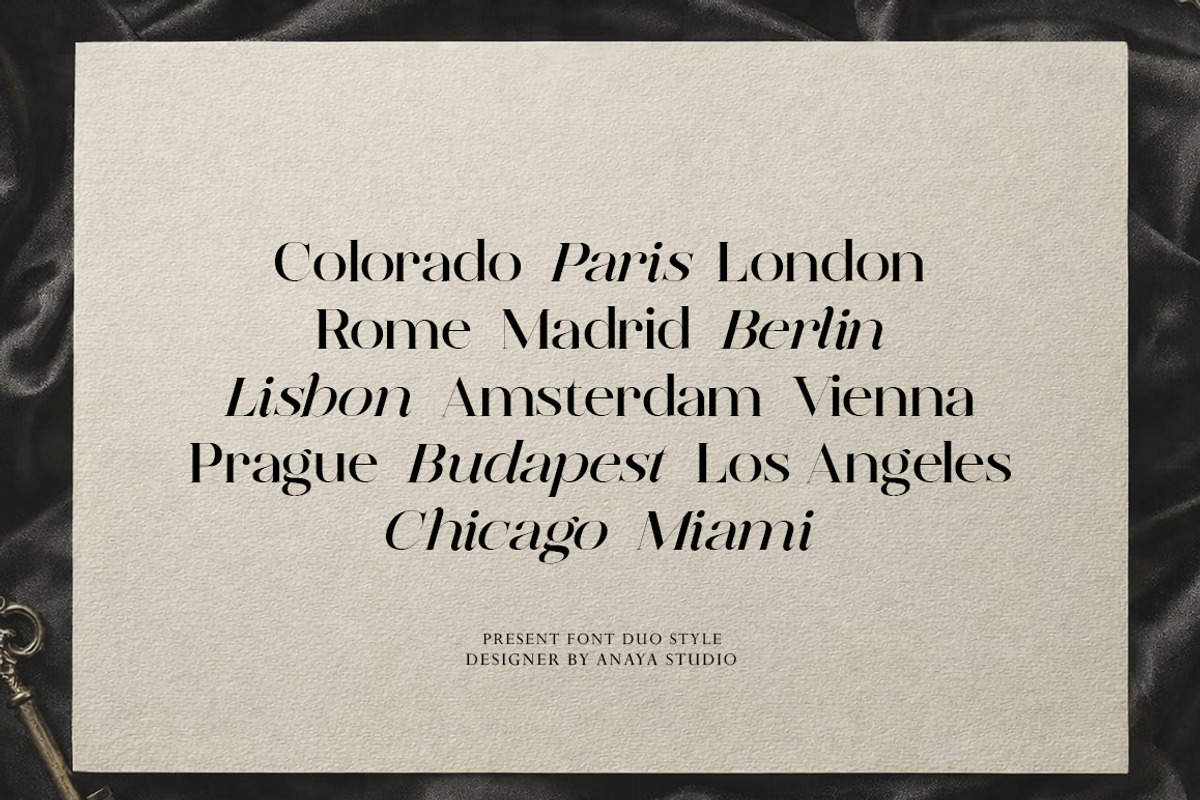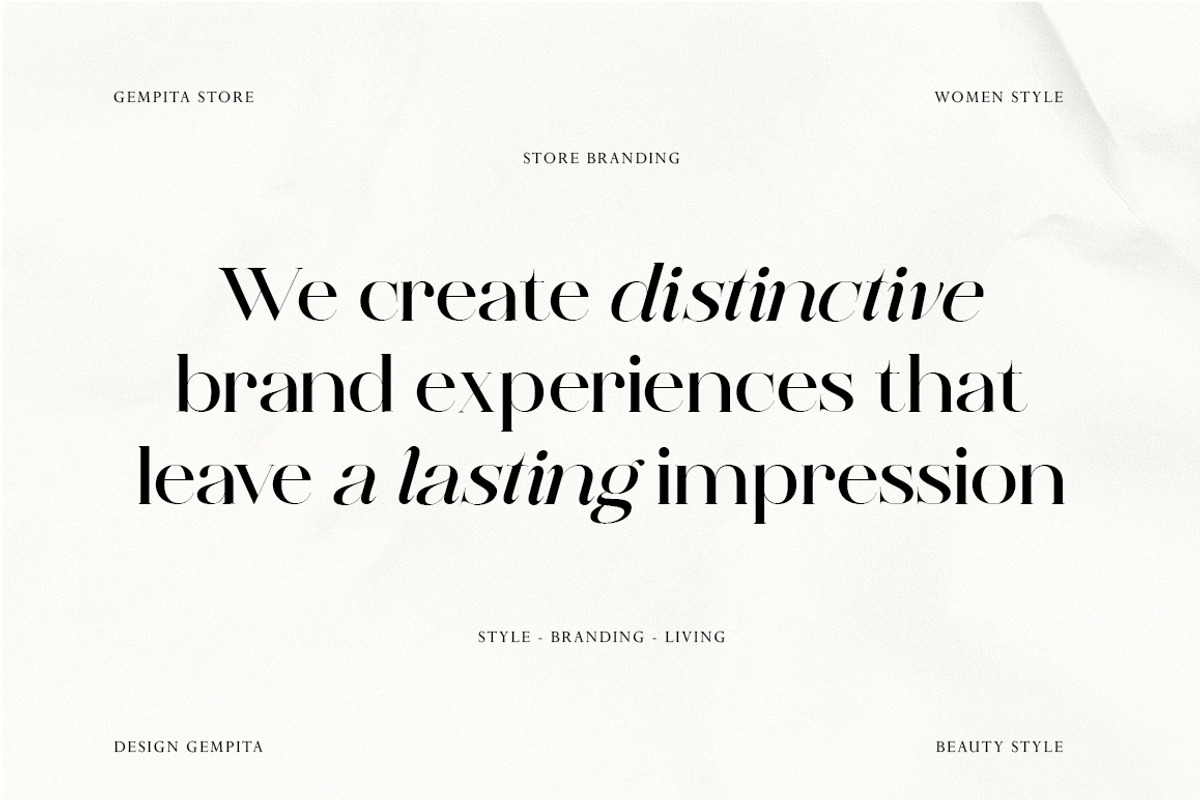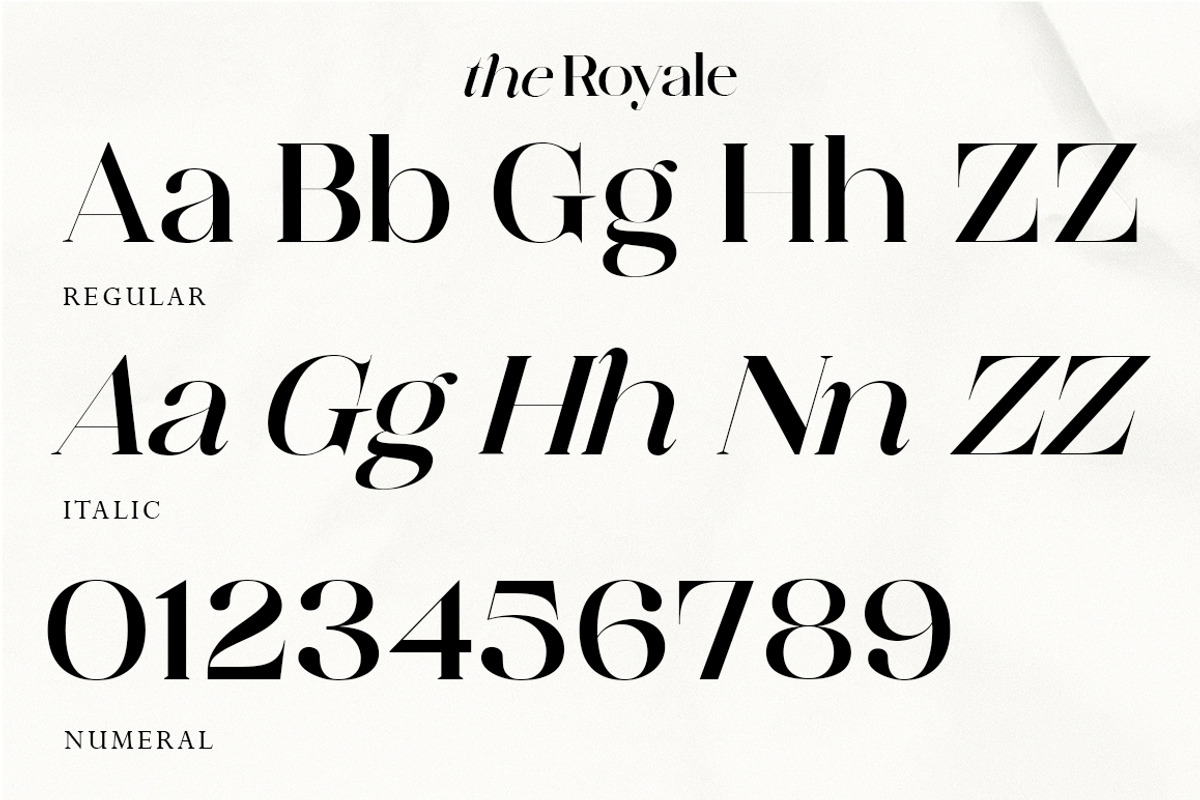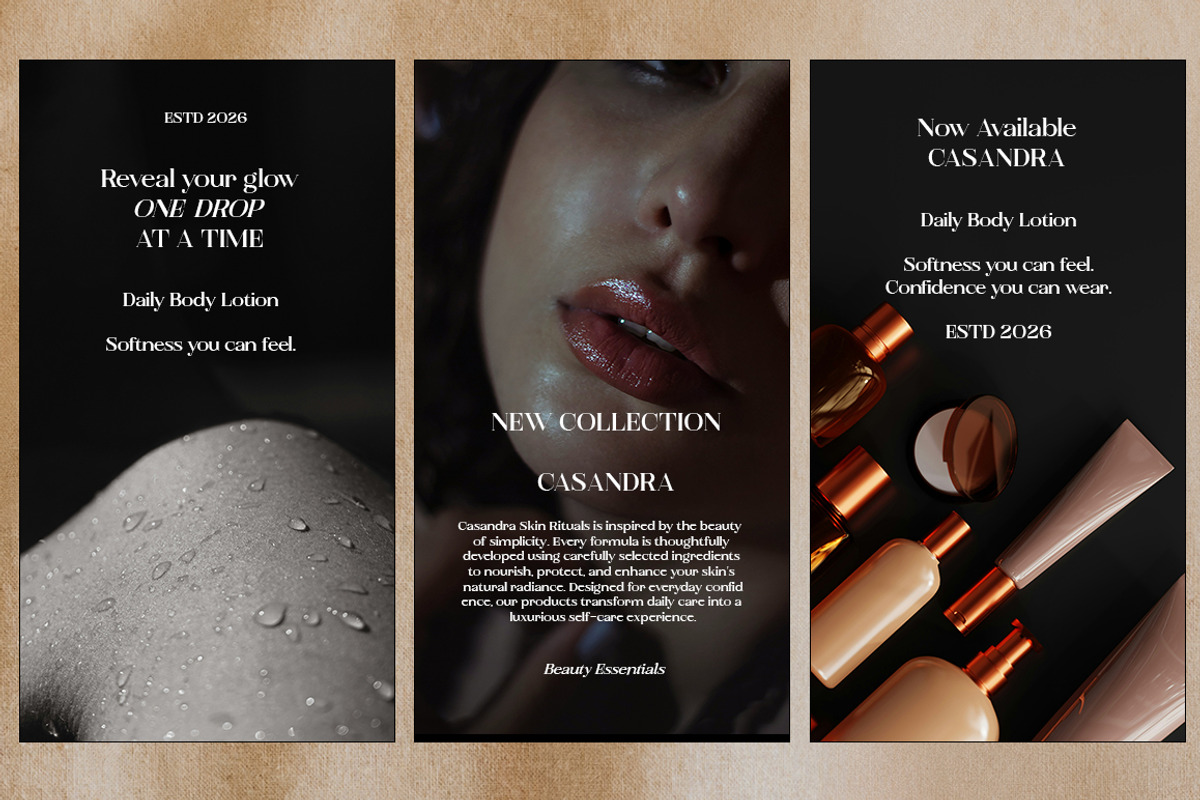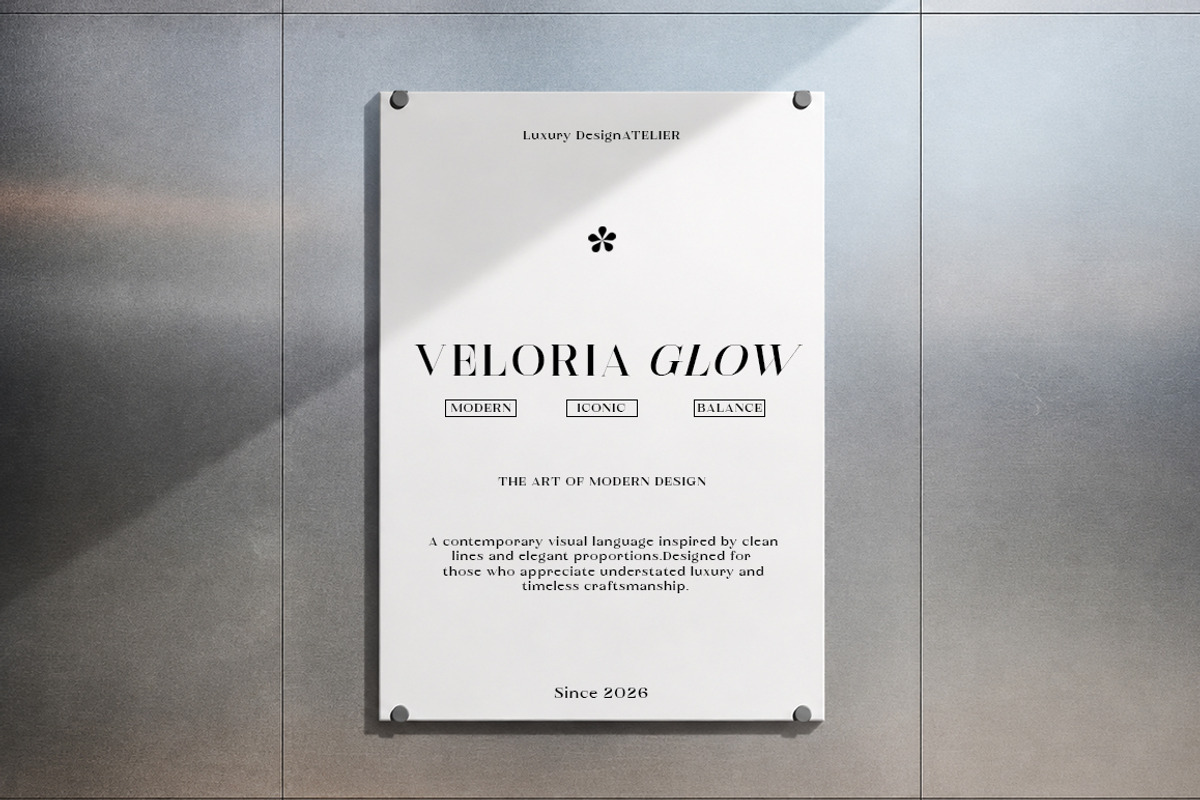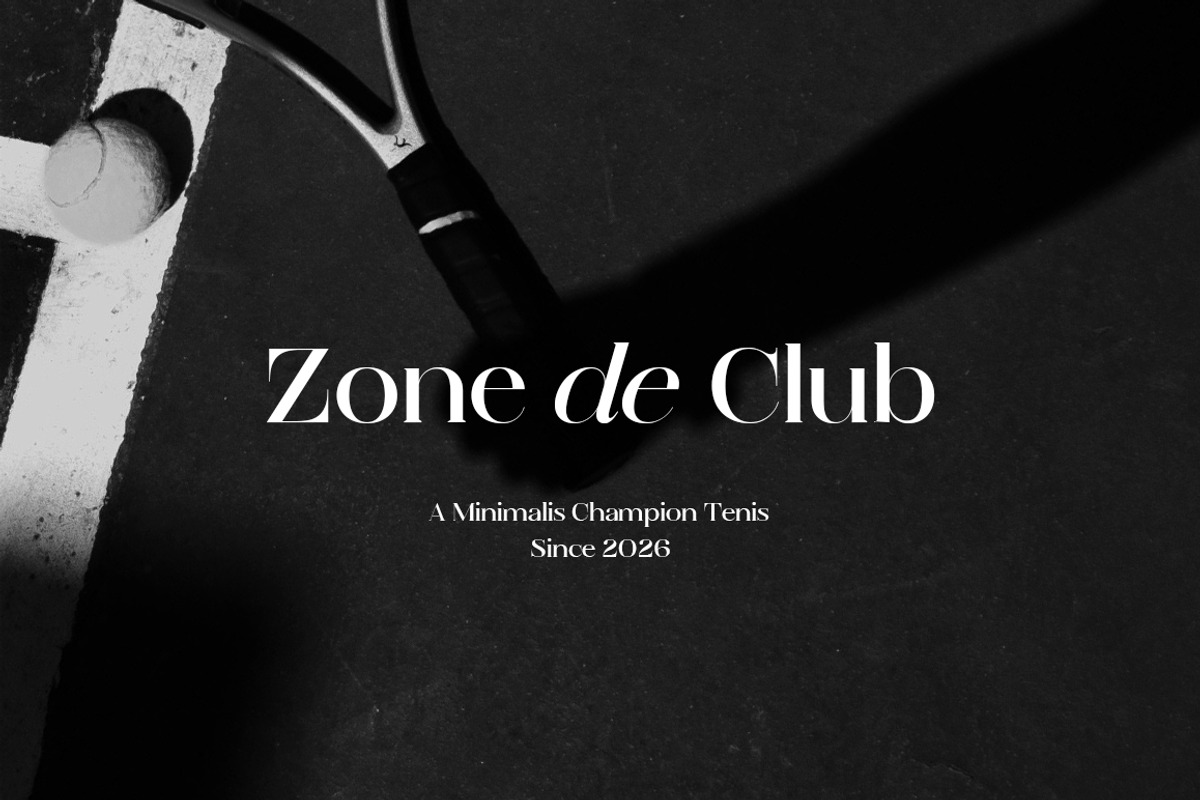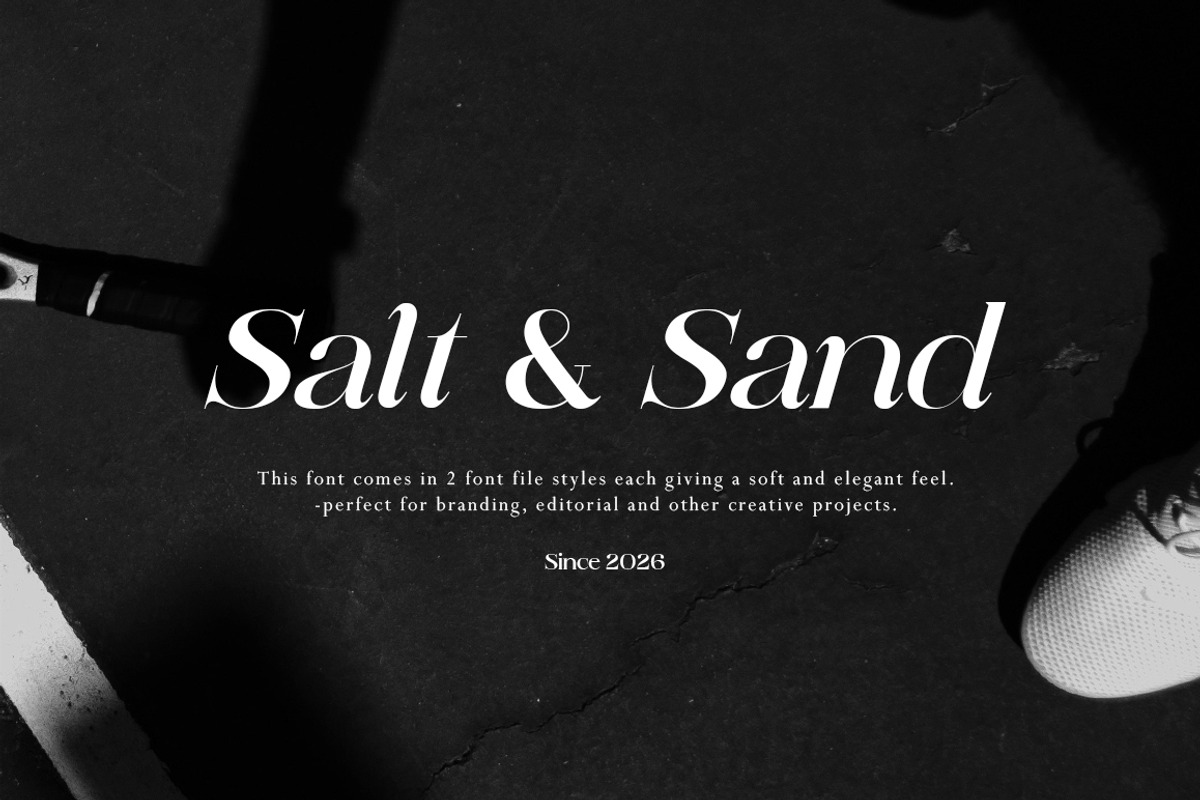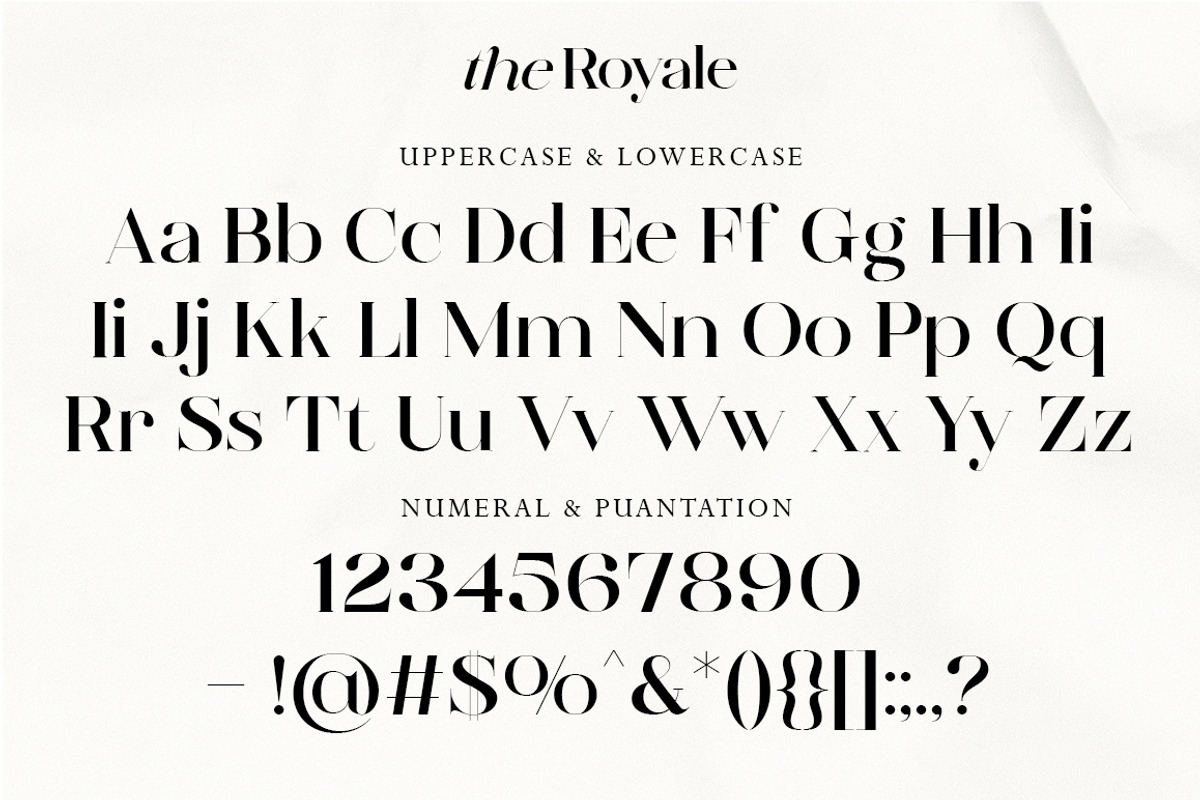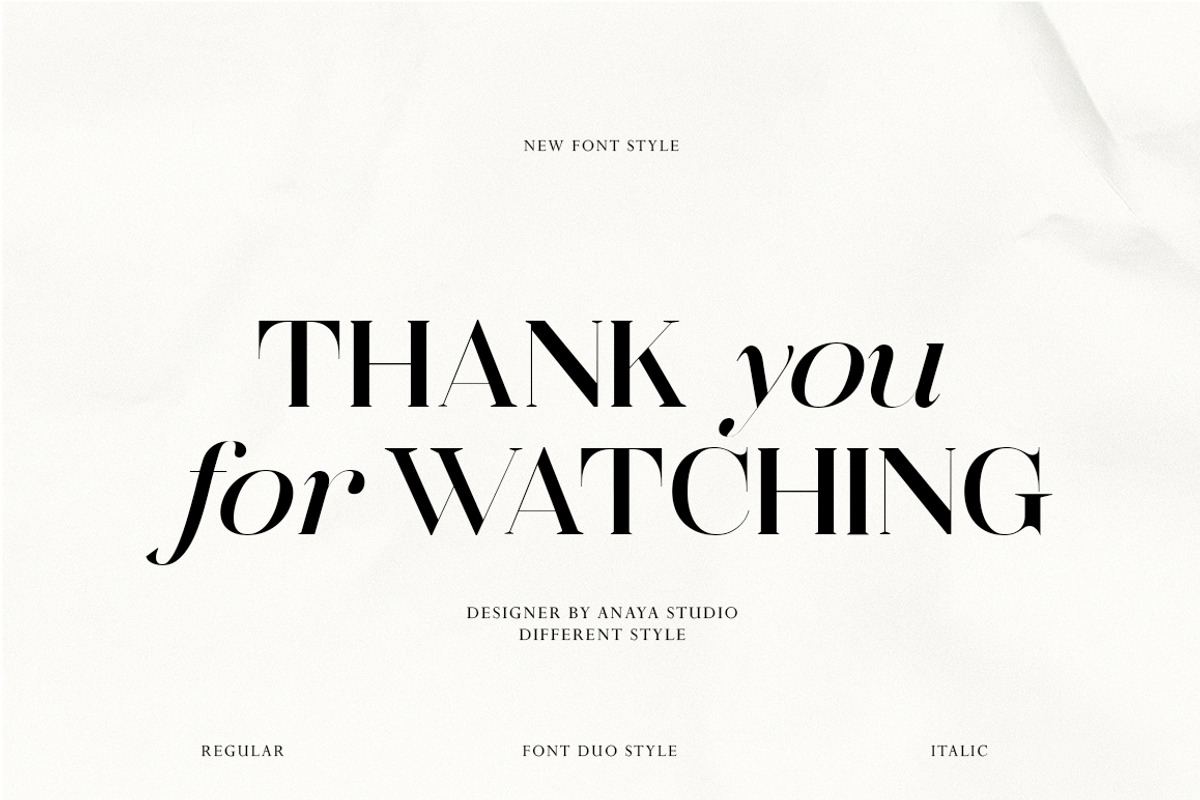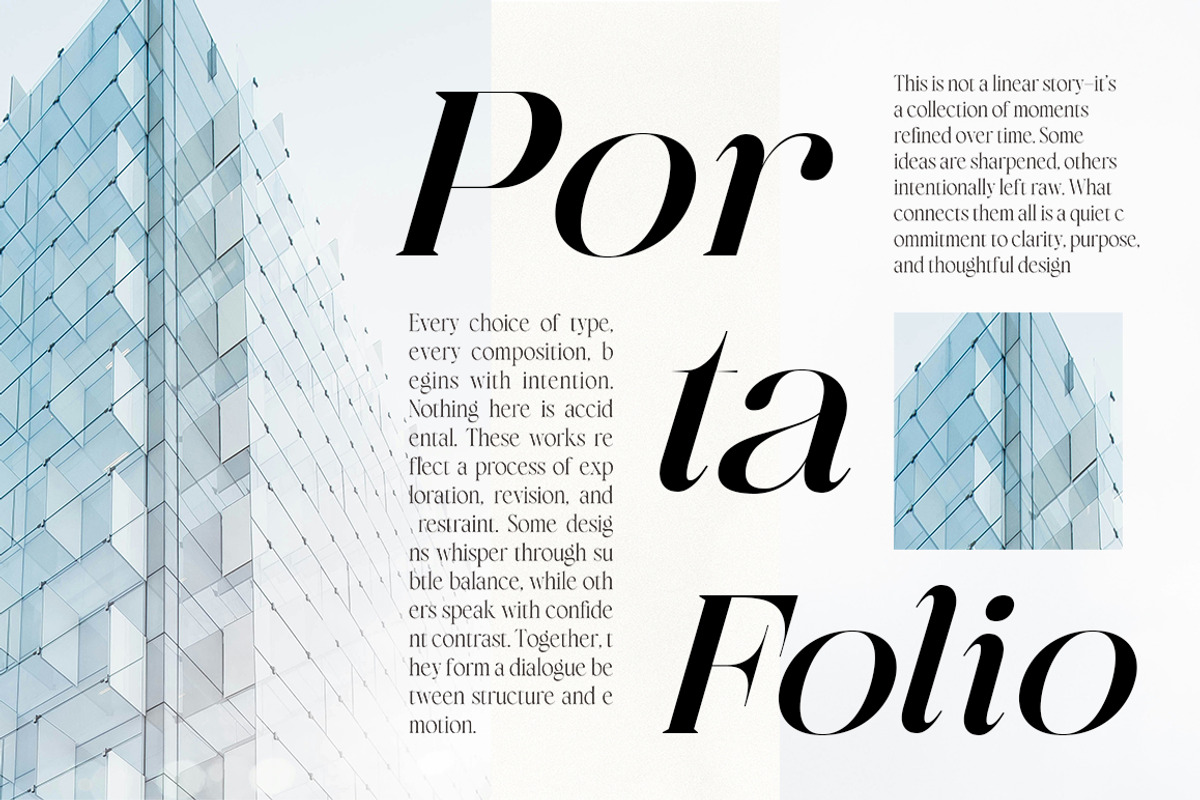
The Royale
Royale is a sophisticated modern serif typeface that blends timeless elegance with contemporary luxury. Featuring high-contrast strokes, graceful curves, and refined letterforms, this font is designed to create a premium and stylish feel. Its unique duo-style concept offers flexibility for both classic and modern designs, making it an excellent choice for branding, editorial layouts, fashion campaigns, luxury packaging, wedding stationery, and social media content. Each character is meticulously designed to strike a harmonious balance between beauty, legibility, and artistic expression.